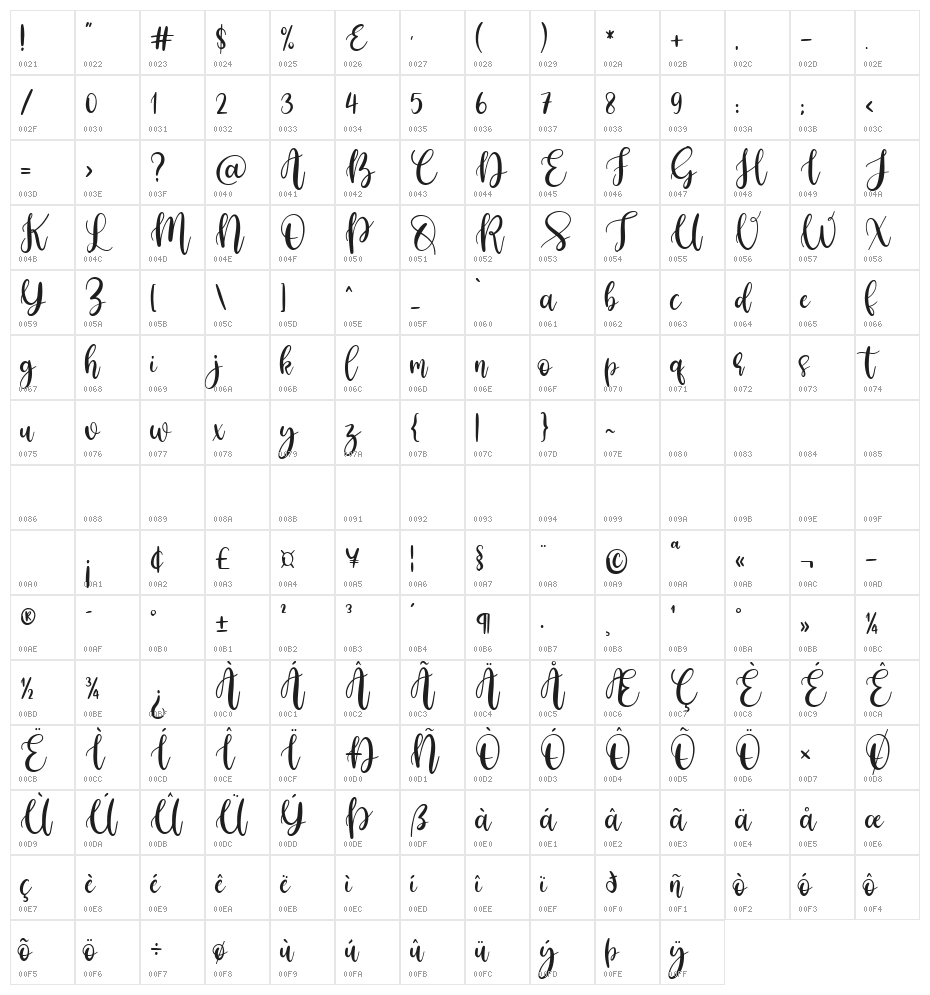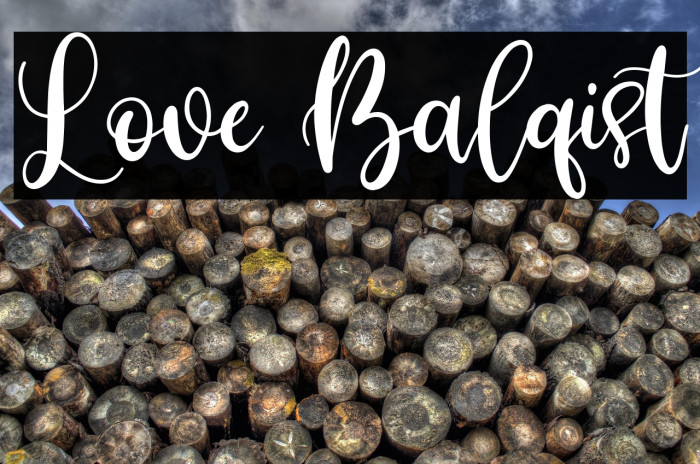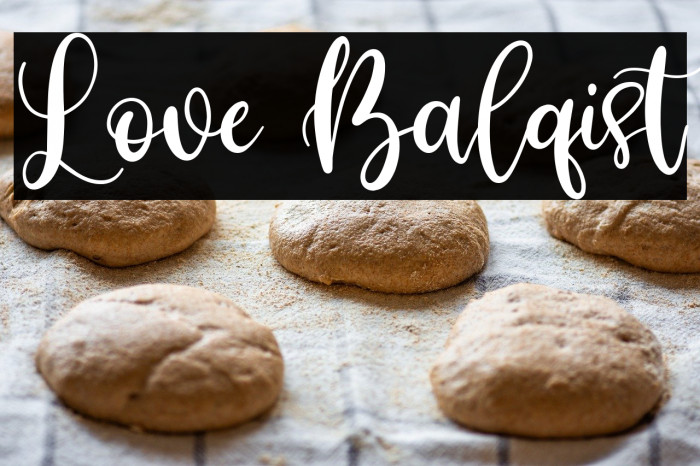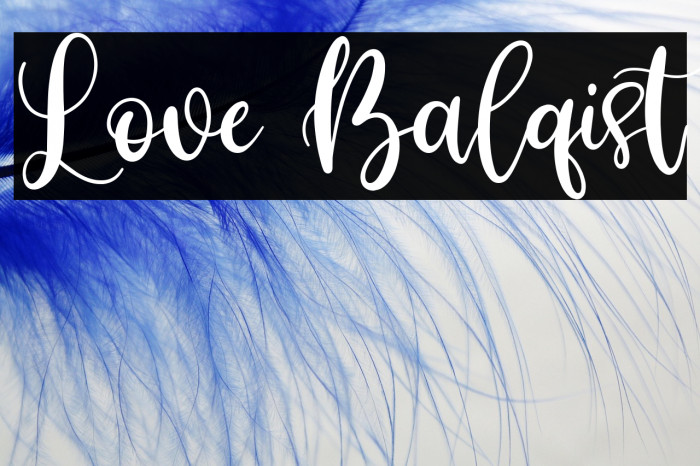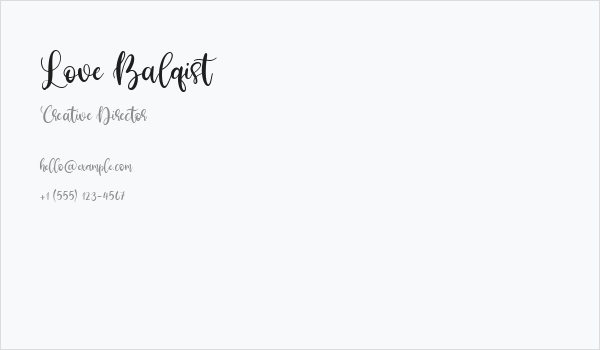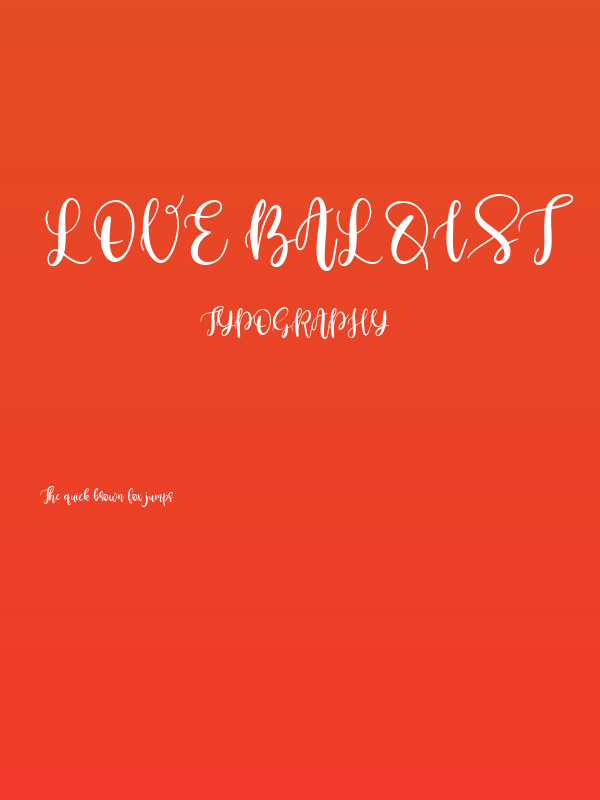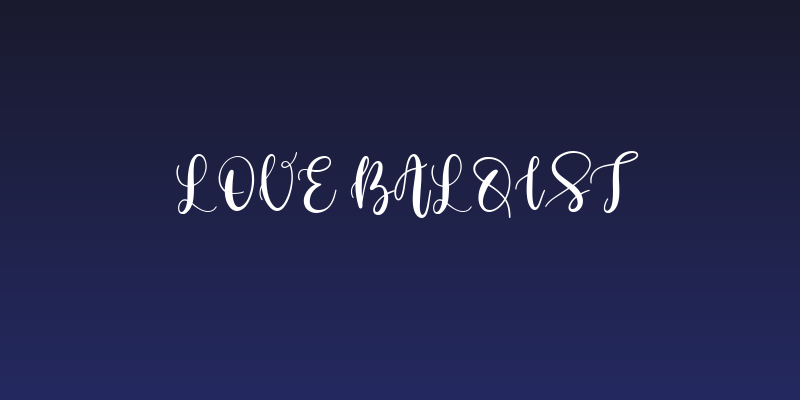
Love Balqist Font
Love Balqist Description
This font features a flowing, cursive style with elegant loops and swashes, giving it a handwritten and artistic appearance. The uppercase letters are characterized by their tall, graceful forms, while the lowercase letters maintain a consistent, smooth flow. The numbers and special characters complement the overall aesthetic, adding a touch of sophistication. The strokes are bold and confident, with a medium contrast that enhances readability while maintaining a decorative flair. This font is ideal for projects that require a personal, creative touch, such as invitations, greeting cards, and branding materials.
| Proposed Projects | Ideal for invitations, greeting cards, branding, and artistic projects. |